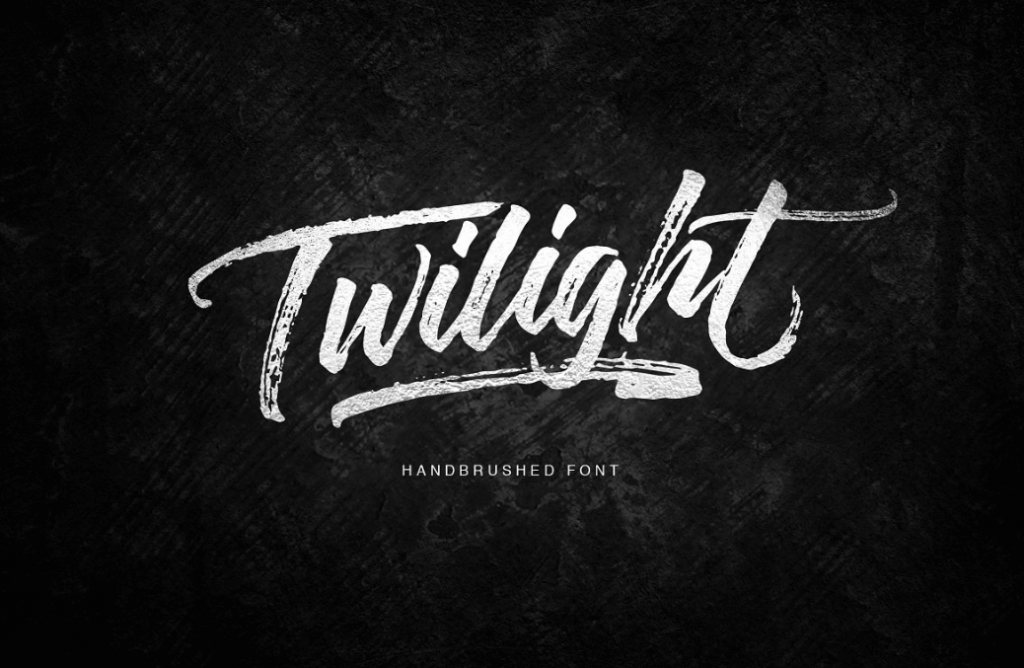
Twilight Font is a popular display font family often seen in the printing world. This unique font collection features a clever mix of letters and numbers. Similar to typeO medium, eclipse, and zephyr fonts, it is sure to make your designs stand out. Explore the world of typography with Twilight Font! Start creating eye-catching prints and digital designs today.
Highlighting the best clarity in the short text and long text paragraph as well.